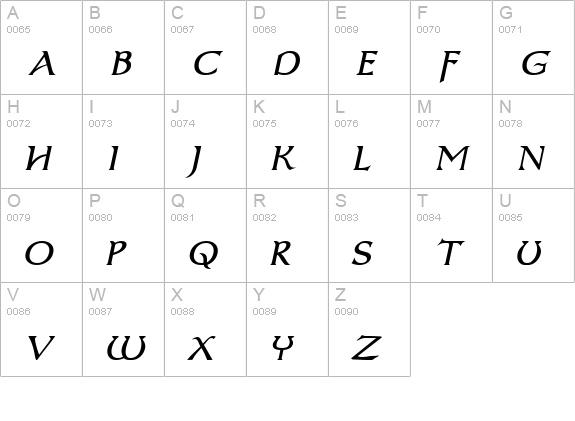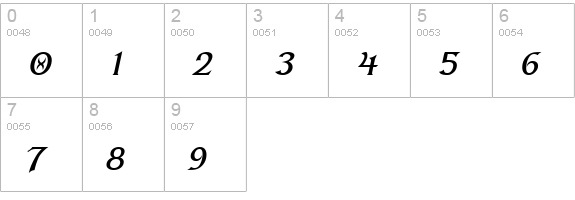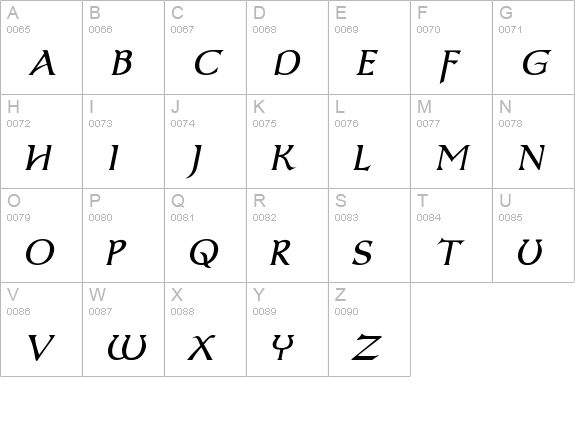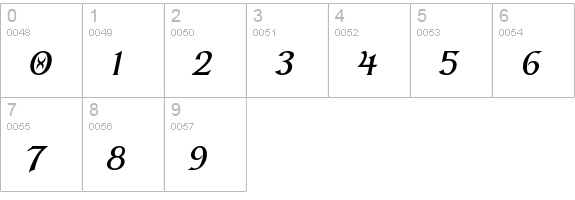
Dumbledor 3 Italic is a distinctive, italic variant in the Dumbledor typeface family \xE2\x80\x94 well suited to design and typography projects.
Dumbledor 3 Italic font is a stylish and elegant typeface that exudes sophistication and charm. Its sleek design and slanted strokes give it a modern and dynamic appearance, making it perfect for adding a touch of flair to any project. With its unique blend of classic and contemporary elements, Dumbledor 3 Italic font is sure to make a statement and elevate your designs to the next level. The best part? Dumbledor 3 Italic font is completely free to download at FontsMarket.com, allowing you to access this versatile and eye-catching typeface without any cost. Whether you're working on a branding project, website design, or any other creative endeavor, Dumbledor 3 Italic font is a fantastic choice that will enhance your work and impress your audience. Download it today and unleash the power of this stunning font in your projects!